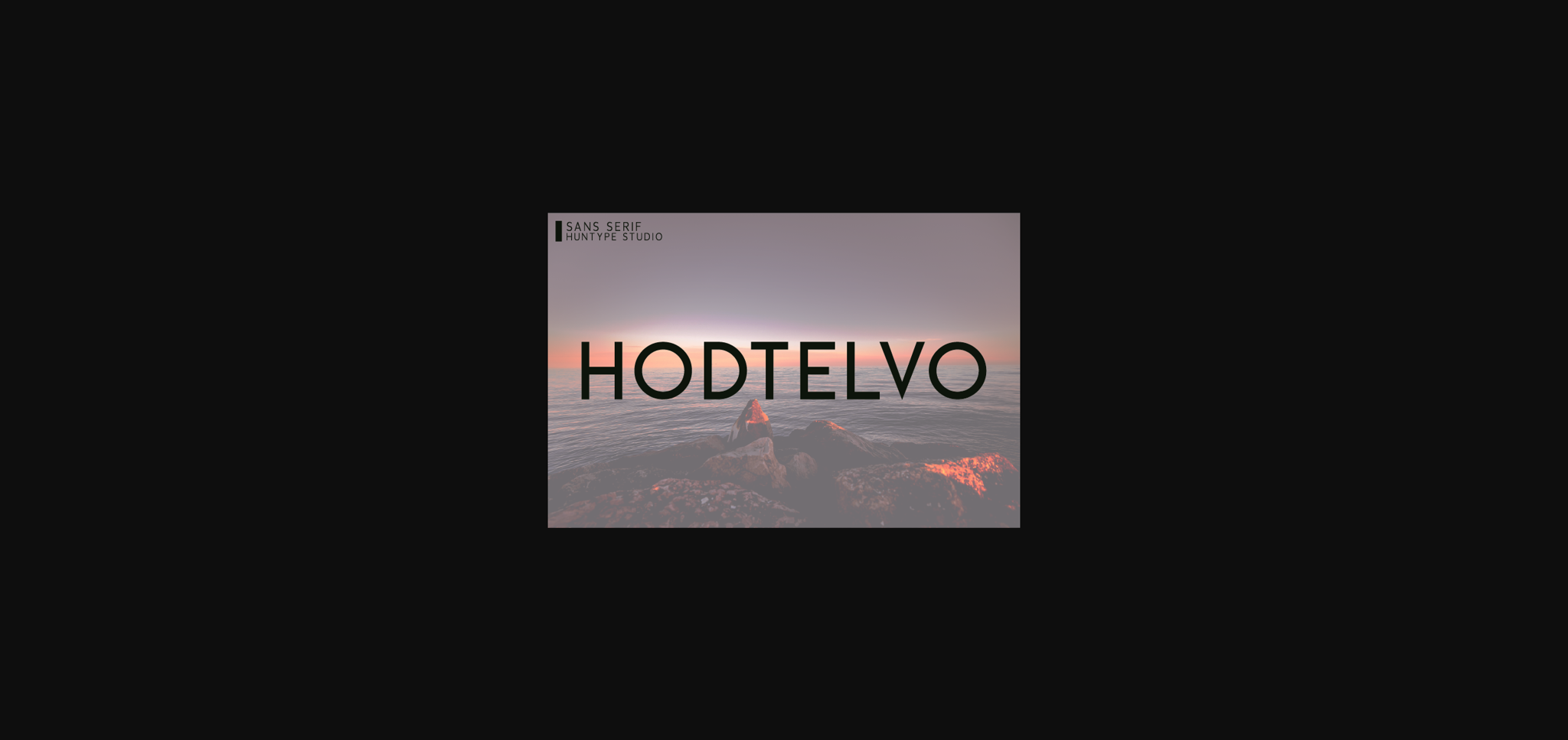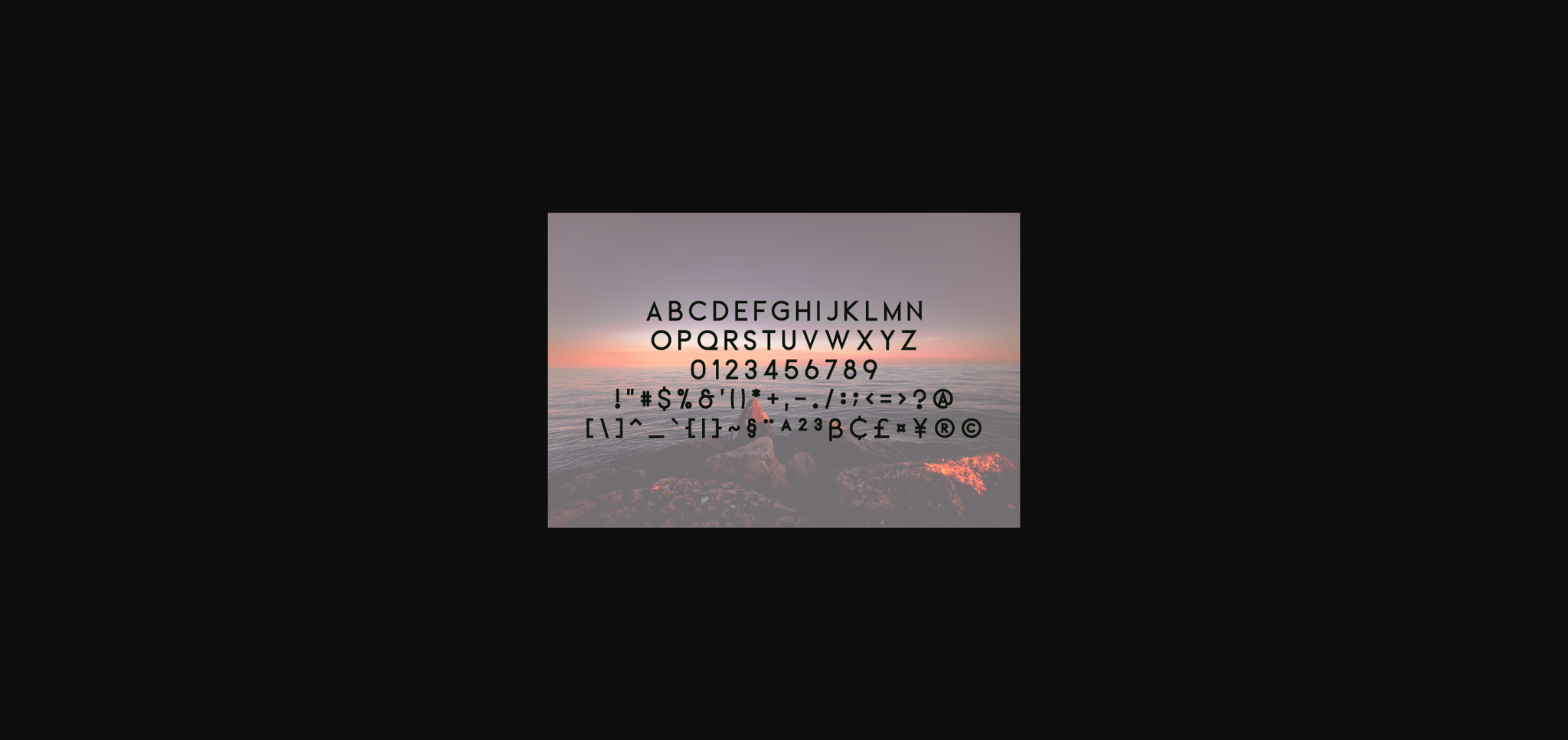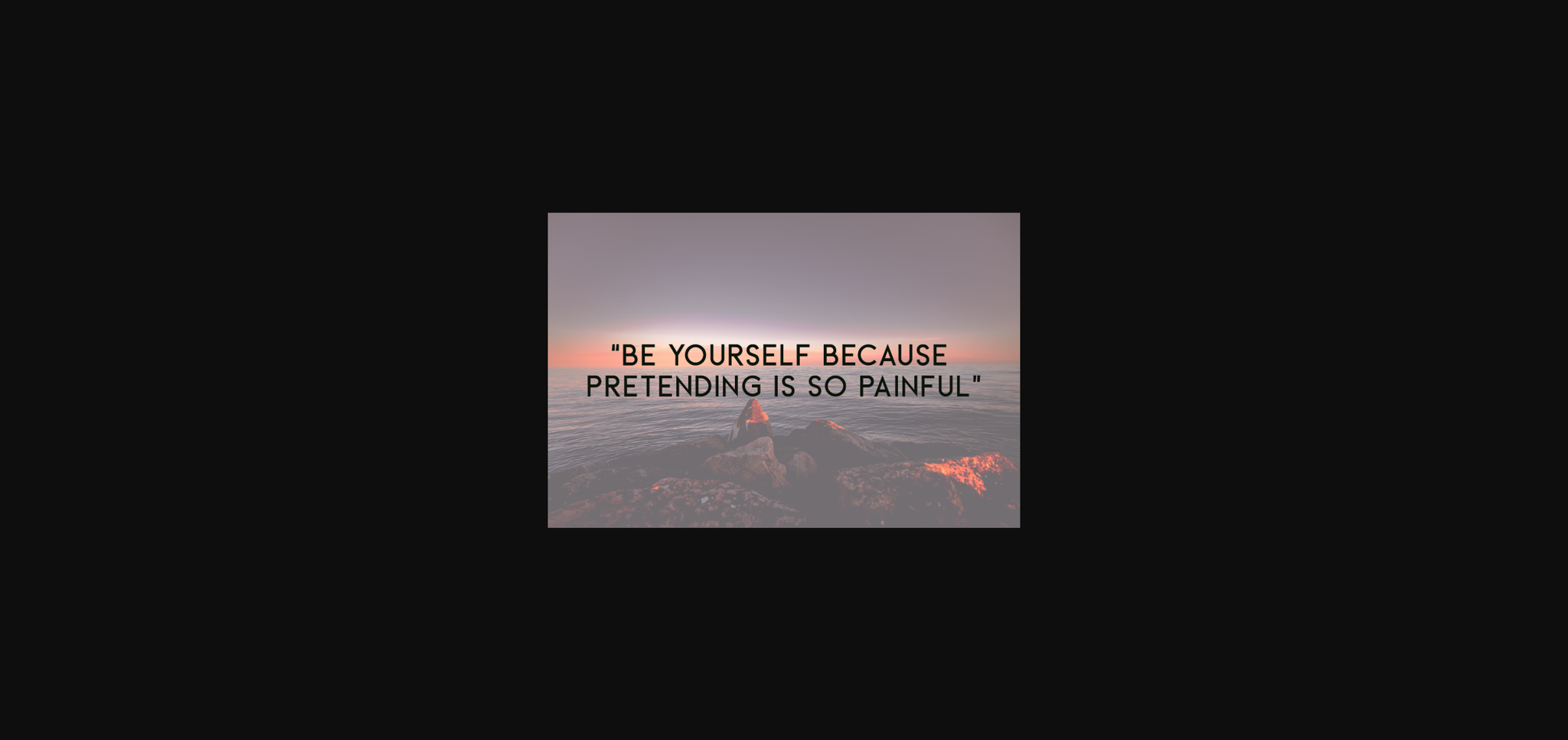
About Hodtelvo Font
Hodtelvo is a unique and modern sans serif font. With its neat and beautiful arrangement of letters, this typeface will look outstanding in both formal and non-formal designs.